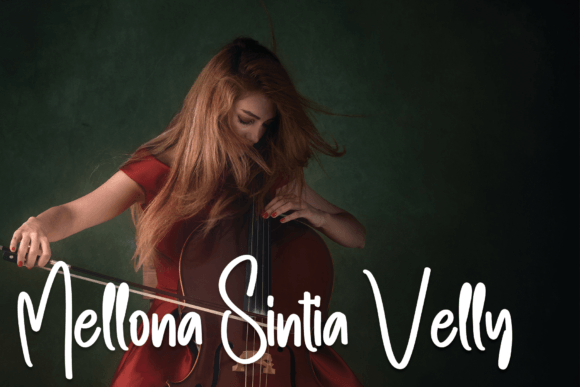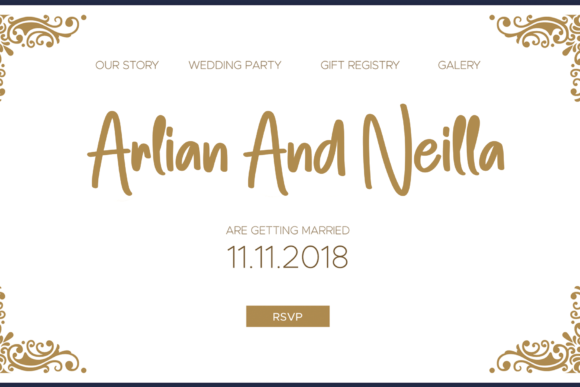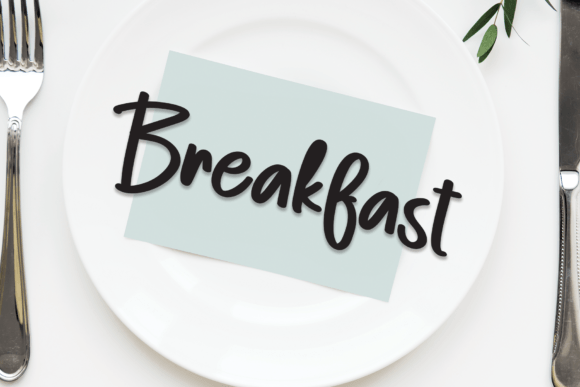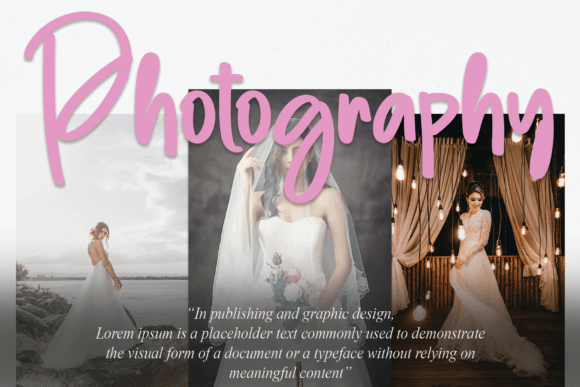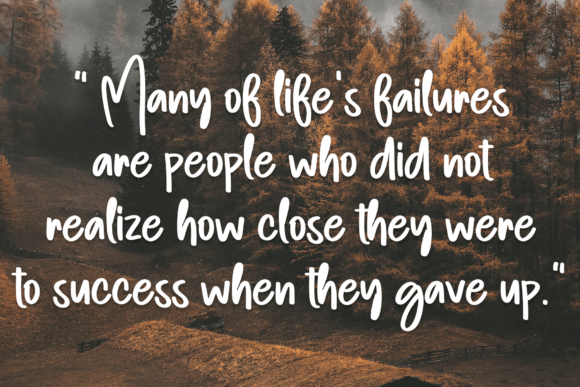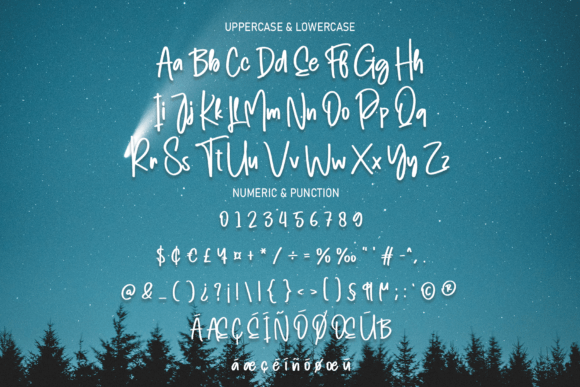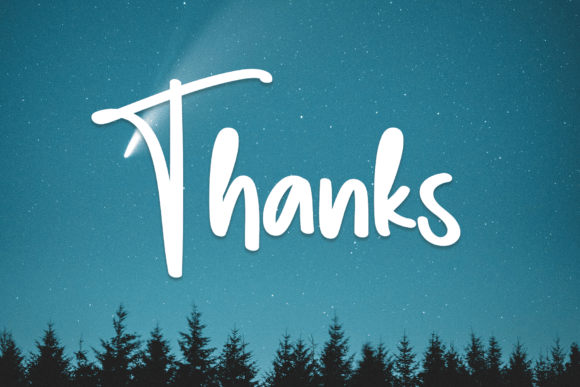
Wonderline Font
**Wonderline: A Fun and Playful Handwritten Font**
Wonderline is a delightful handwritten font that radiates a sense of fun and playfulness. With its friendly and playful style, this typeface is a fantastic choice for a wide range of design ideas. Whether you’re working on creative projects, crafting, or designing eye-catching visuals, Wonderline adds a cheerful and approachable touch.
One of the standout features of Wonderline is its ability to evoke a sense of joy and positivity. The font’s whimsical letterforms and carefree design make it perfect for projects that aim to create a lighthearted and cheerful atmosphere. It’s ideal for conveying messages of happiness, celebration, and creativity.
Wonderline is particularly well-suited for crafting and DIY projects. Whether you’re creating handmade cards, scrapbooking, or working on other crafty endeavors, this font adds a personalized and artistic flair to your creations. Its friendly appearance makes it easy to incorporate into various craft designs.
When used in digital and print media, Wonderline brings a touch of playfulness to your content. It’s a great choice for social media graphics, posters, flyers, and promotional materials where you want to capture your audience’s attention with a joyful and approachable style.
For businesses and brands, Wonderline can add a unique and memorable element to your marketing materials. Whether you’re designing a logo, packaging, or advertising materials, this font can help convey a brand personality that’s friendly, creative, and customer-centric.
Wonderline’s versatility extends to educational materials as well. It’s an excellent choice for children’s books, school projects, and educational resources where a fun and engaging font can enhance the learning experience.
In summary, Wonderline is a fun and cute handwritten font that brings a sense of playfulness and positivity to your design projects. Its friendly and approachable style makes it suitable for crafting, social media, promotional materials, branding, and more. Choose Wonderline to infuse your designs with joy and creativity.